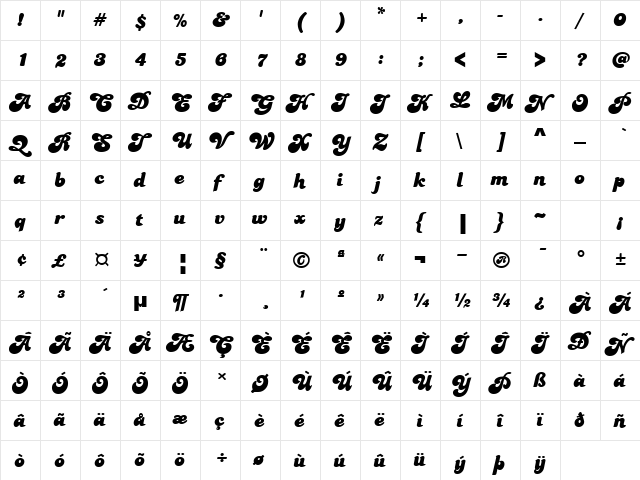
PT Banana Split Normal
Design Context for PT Banana Split Typeface
PT Banana Split is a composed and adaptable typeface that performs quietly and consistently across a wide range of design contexts.